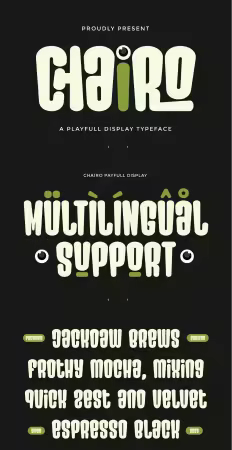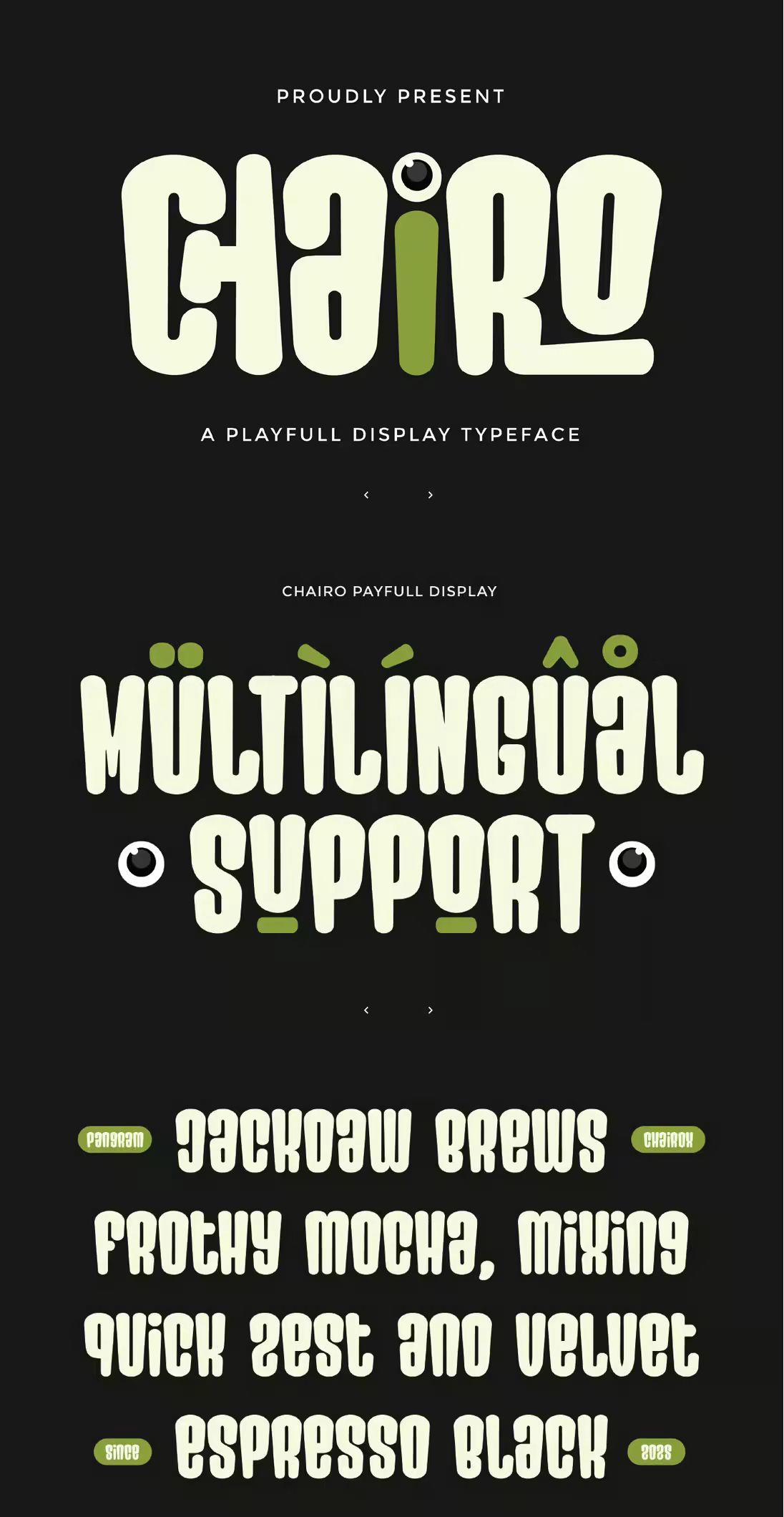
Chairo – Playful Display Font
Chairo is a bold and playful display font designed to bring joy, creativity, and personality into your visual projects. With its rounded shapes, friendly curves, and expressive letterforms, Chairo delivers a fun yet professional aesthetic that instantly captures attention.
Perfectly crafted for modern creatives, this font is ideal for branding, posters, kids-related designs, social media graphics, packaging, headlines, logos, and eye-catching display typography. Chairo balances playfulness with clarity, making it highly versatile while maintaining strong visual impact across both digital and print applications.
Features
Multilingual
Uppercase alphabet A-Z
Lowercase alphabet a-z
Numbers 0-9
Some punctuation
Some Alternates and Ligatures